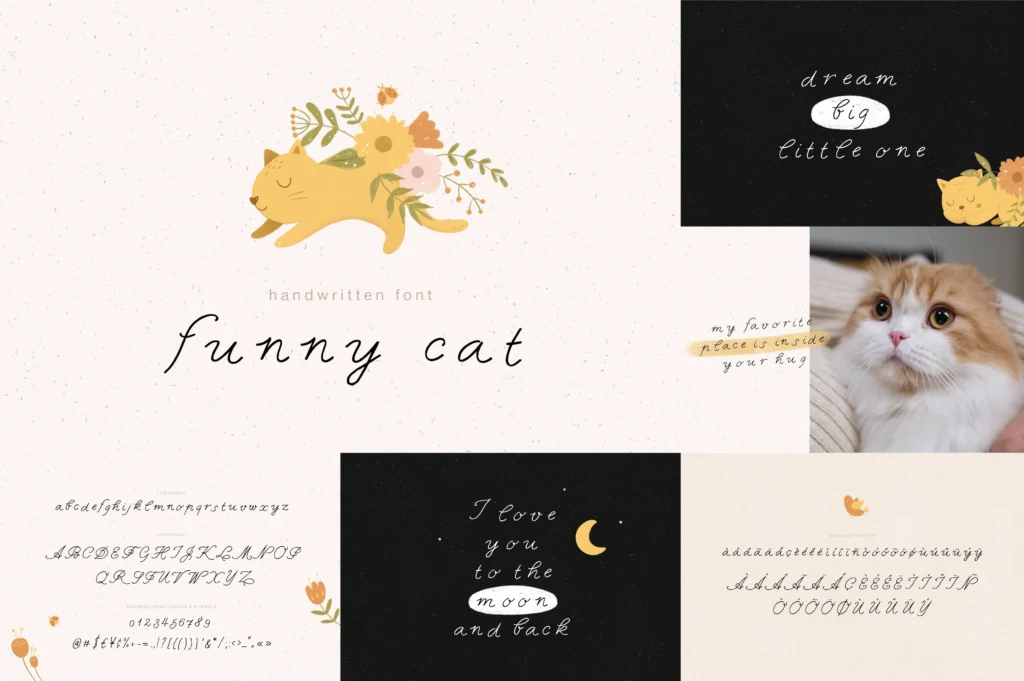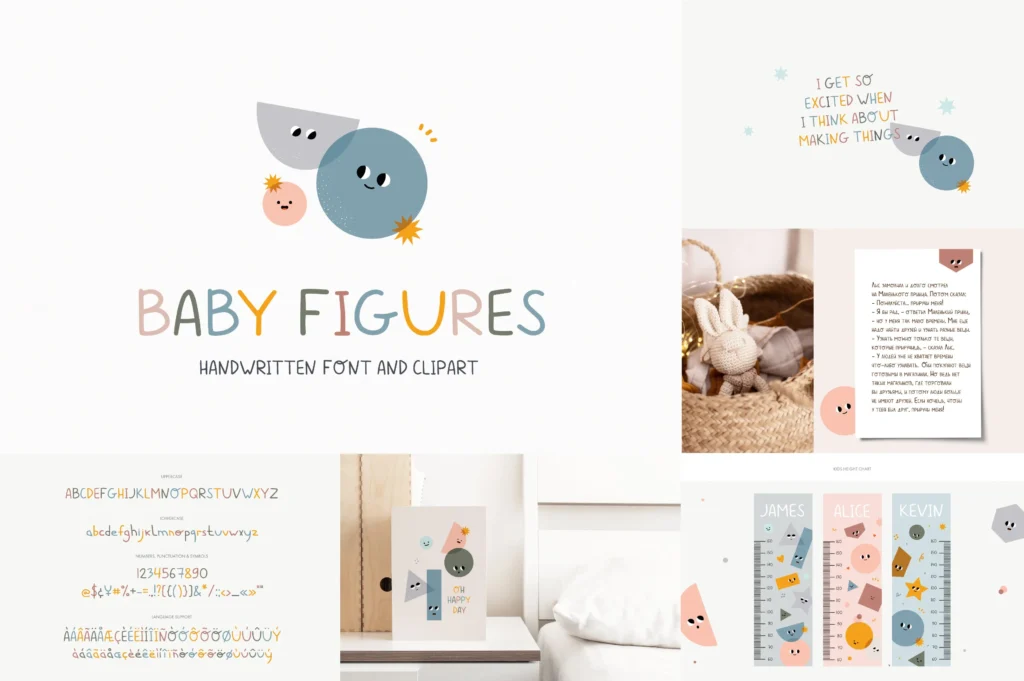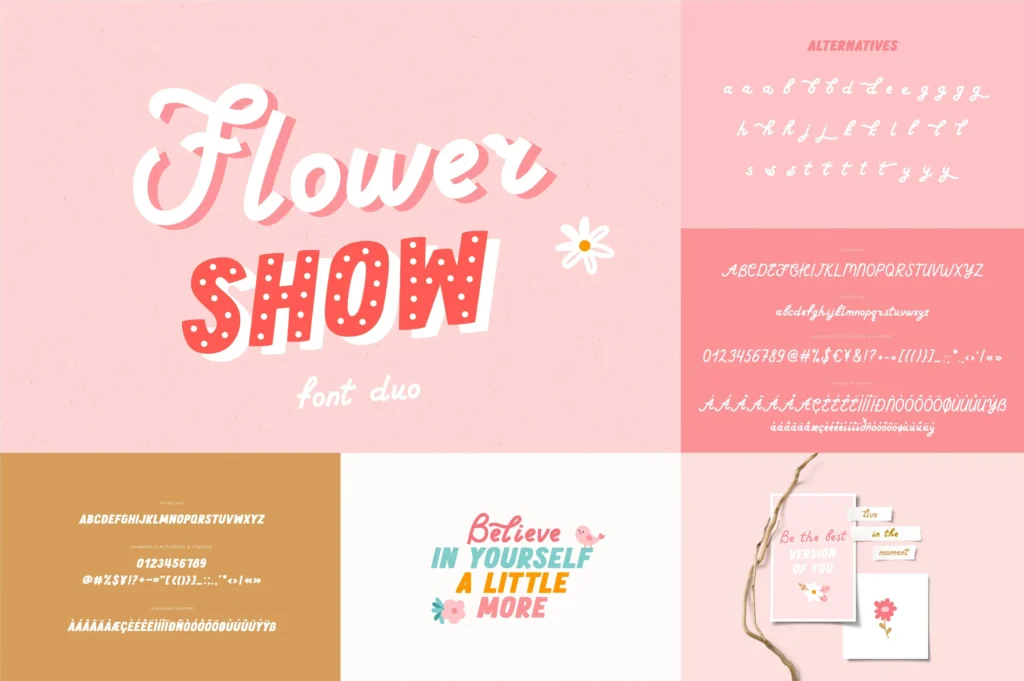
The Kids Font Bundle
is
a set of
31
handwritten fonts from
Julia Volkova (https://creativemarket.com/Julia_Volkova?u=PixelSurplus)
, including 16 font families and
1023
fun graphic design elements. The hand drawn style provides an imperfect look, great to add a handmade touch to your projects.
You will get:
Flower show | Font duo
Little friends | Hand drawn font
Holly Jolly | Font duo
Space walk | Playful font
Cats party | Playfull font
Secret forest | Cute Font
Hocus pocus | Cute font
Hello Dino | Friendly font
Ocean Secret | Playful font
Autumn moments | Script font
Cute tiger | Kids font
Winter mood | Kids font
Funny cat | Handwritten font
Summer vibes | Playful font
Garden friends | Font duo
Baby figures | Handwritten font